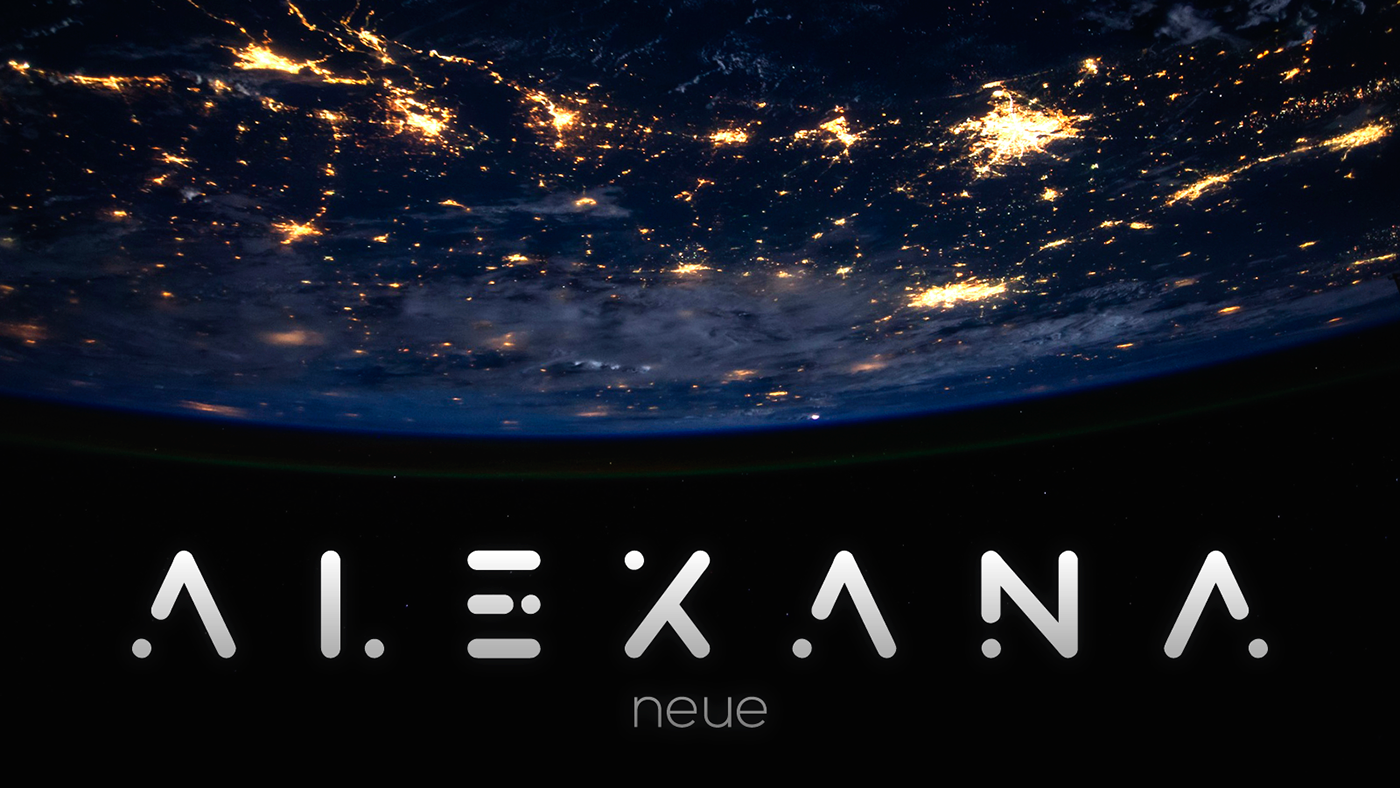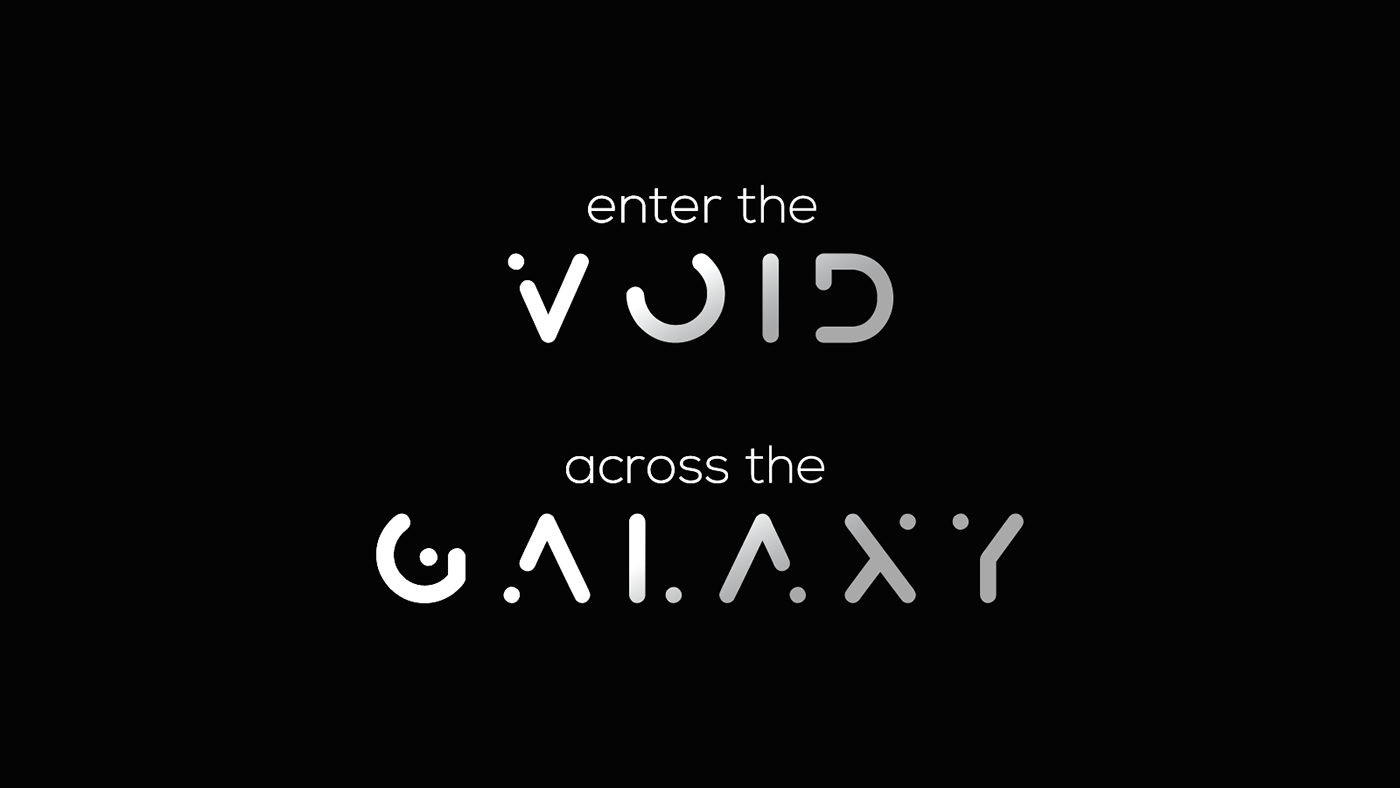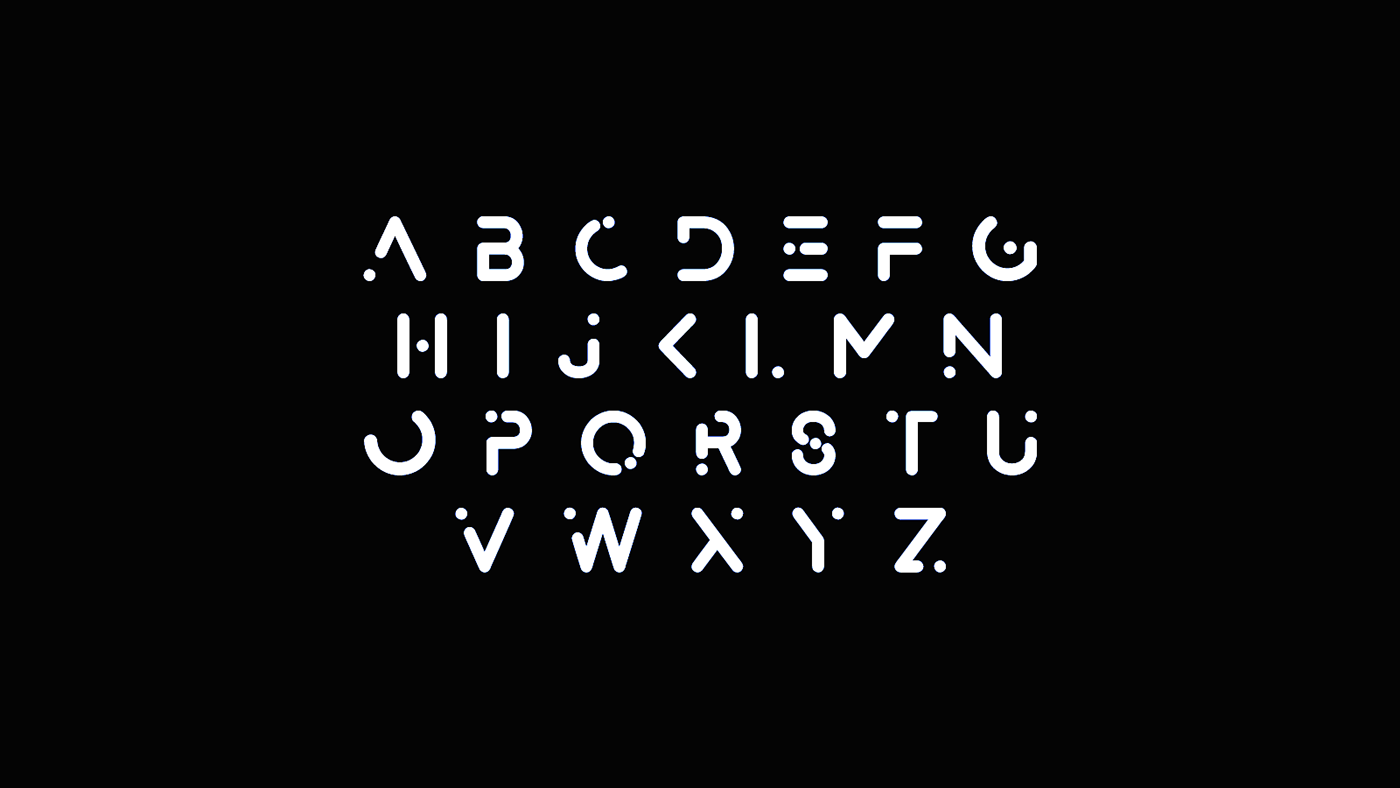
Alexana Neue is a futuristic font inspired by outer space. Created by Mark Mora, Alexana Neue is all uppercase and it’s perfect for branding projects, for logos or posters.